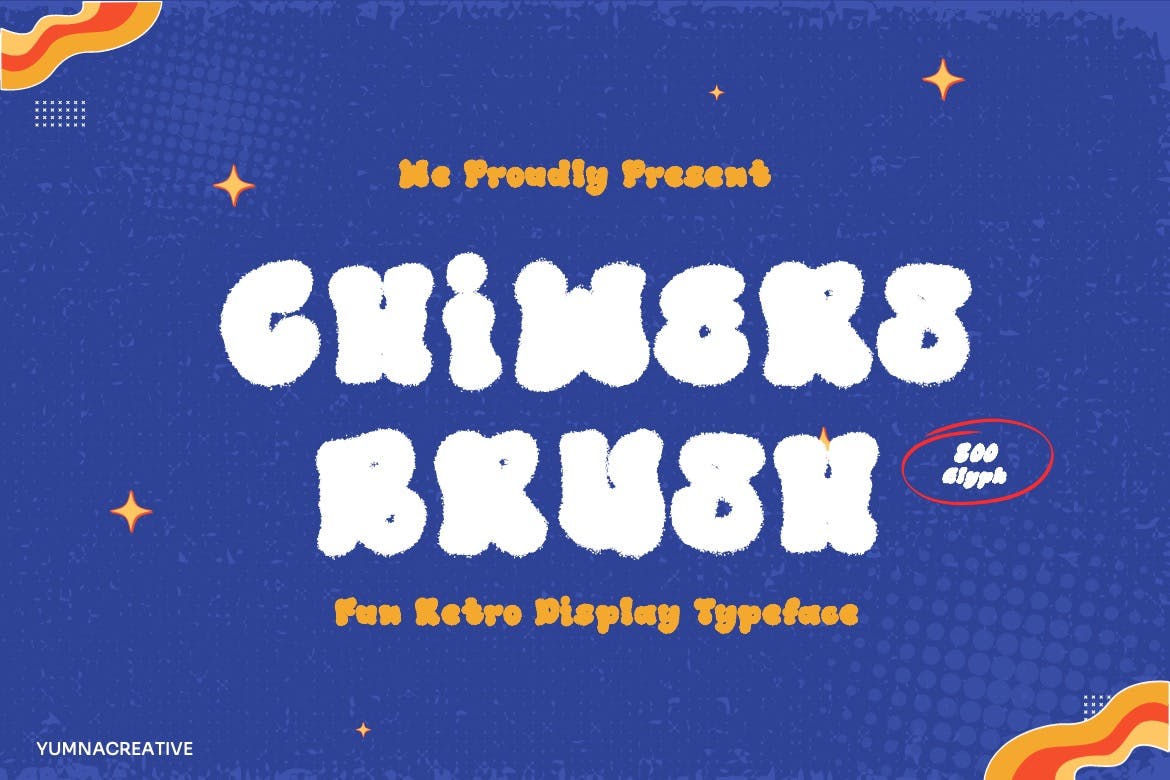
Chiwers - Fun Retro Font
Chiwers - Fun Retro Font cheers across vintage candy store signage, retro arcade game interfaces, nostalgic ice cream parlor branding, cheerful 80s party invitations, fun vintage toy packaging, retro roller skating rink graphics, nostalgic diner menu designs, vintage carnival promotions, cheerful throwback fashion campaigns, retro children's entertainment venues, fun vintage radio station materials, and joyful nostalgia marketing where playful cheer and retro fun create irresistibly happy experiences.
This joyful typeface generates excitement through its perfect fusion of infectious cheerfulness and vintage nostalgia that creates typography radiating pure fun and nostalgic happiness. Chiwers - Fun Retro Font captures the essence of carefree vintage entertainment with its bouncy, cheerful letterforms that suggest the exuberant energy of classic arcade games and the innocent joy found in retro entertainment culture. The font's playful design approach incorporates elements that evoke bubble gum pop colors, vintage neon signs, and the optimistic spirit that defined the golden age of fun entertainment and cheerful pop culture. Its distinctive character reflects the enthusiasm, innocence, and pure joy that define authentic retro entertainment and vintage fun culture.
The Chiwers - Fun Retro Font family encompasses multiple cheerful variations including Regular, Bold, Light, Bouncy, and Vintage versions, each maintaining the font's characteristic retro cheerfulness while offering different levels of fun impact. The collection features retro-inspired styling, cheerful effects, and nostalgic textures that enhance its vintage fun aesthetic. Additional elements include retro symbols, cheerful ornaments, vintage decorative borders, and fun flourishes that reinforce the font's connection to retro entertainment culture and nostalgic happiness.
Retro entertainment brands and nostalgic lifestyle companies consistently select Chiwers - Fun Retro Font Free Download for projects requiring typography that communicates vintage cheerfulness and retro fun authenticity. This remarkable typeface excels in applications where creating joyful nostalgia and conveying retro entertainment value are essential for vintage market and family entertainment success. The font's cheerful qualities make it particularly effective for retro venues, vintage-inspired products, and nostalgic entertainment brands targeting audiences who appreciate retro fun and vintage cheerfulness.
Whether you're designing retro entertainment venues, creating vintage product packaging, developing nostalgic marketing campaigns, or crafting cheerful retro communications, Chiwers - Fun Retro Font delivers unmatched vintage fun authenticity. Its ability to convey retro cheerfulness, nostalgic joy, and vintage entertainment spirit makes it invaluable for retro entrepreneurs seeking typography that genuinely captures the infectious happiness of vintage fun culture. The font's cheerful presence ensures your designs will communicate the joyful nostalgia and retro entertainment energy that define exceptional vintage communications and nostalgic fun experiences.